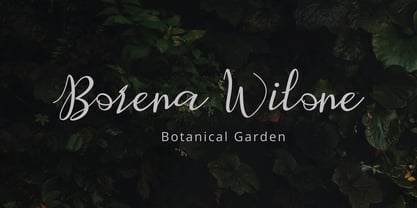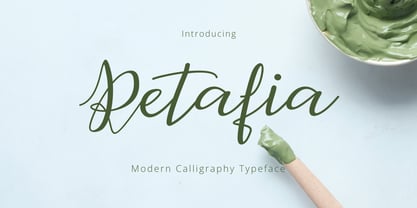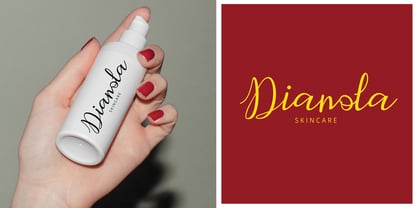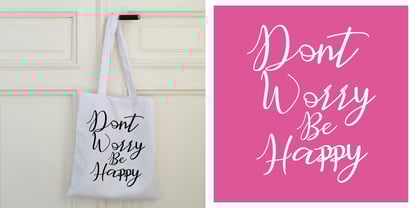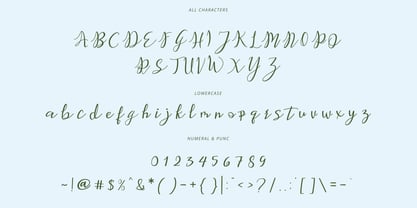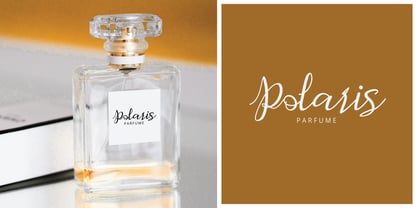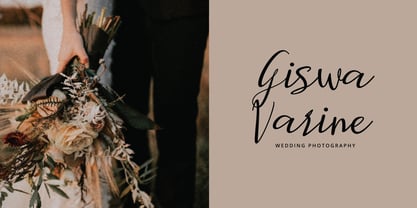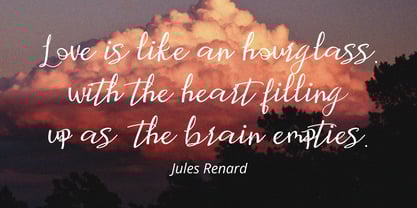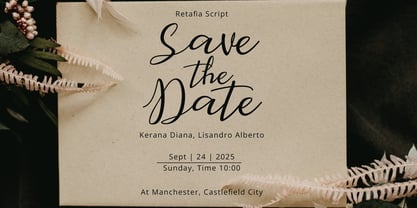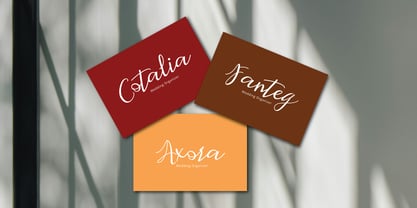
Retafia Script
by Pointlab
The Retafia Script Font Family was designed by Ferdiansyah and published by Pointlab. Retafia Script contains 1 styles. More about this family
Retafia Script with a script style, decorative characters and a dancing baseline!
Retafia Script with 130+ glyphs. The alternative characters were divided into several Open Type features such as Swash,
Designers: Ferdiansyah
Foundry: Pointlab